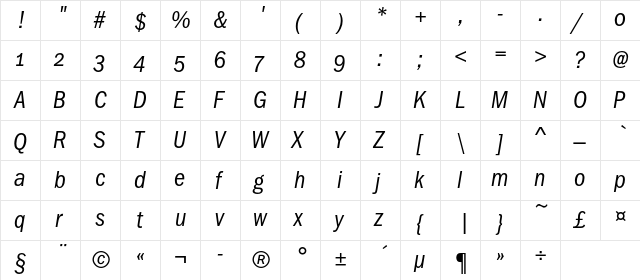
FranklinGothicBookCondOSC Italic Font Preview
Design Context for FranklinGothicBookCondOSC Typeface
FranklinGothicBookCondOSC has the quiet confidence of well-executed sans-serif typography: versatile, unobtrusive, and dependable at any size. The slanted form adds forward momentum and visual energy. The condensed width makes it efficient for tight spaces without sacrificing legibility.
Font Pairing: Works well alongside a characterful serif or display font that can carry the expressive load while FranklinGothicBookCondOSC handles the functional copy.
Pro Tip: Try FranklinGothicBookCondOSC in all-caps with moderate tracking for navigation and label copy — it performs well in systematic UI contexts.